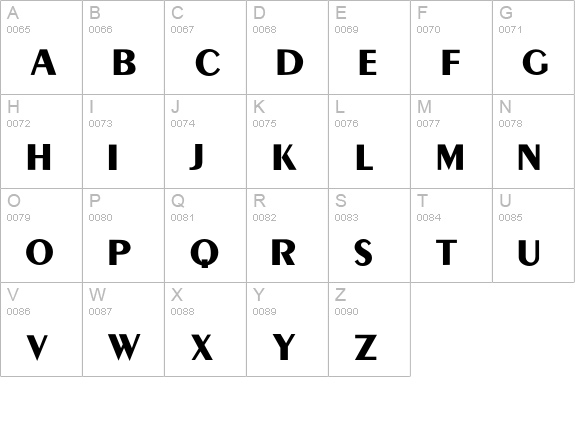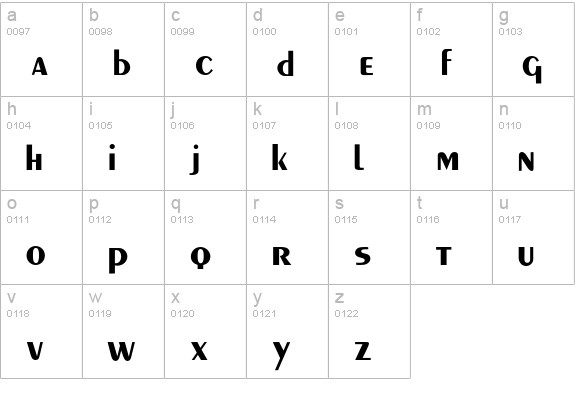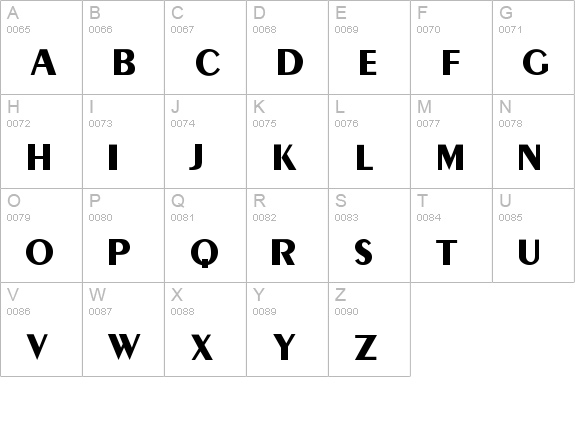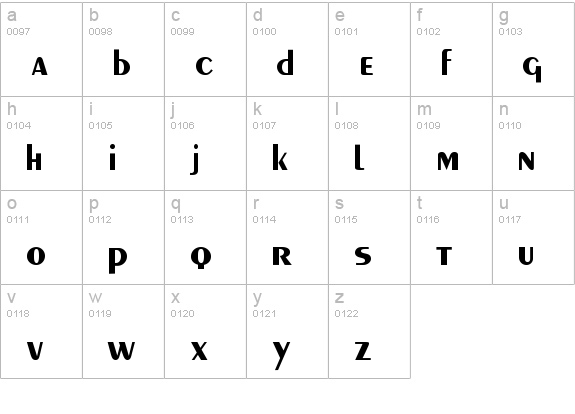
The Alberta font is a modern and stylish typeface that exudes elegance and sophistication. With its clean lines and sleek design, this font is perfect for a wide range of design projects, from branding and advertising to invitations and social media graphics. The Alberta font is versatile and easy to read, making it a great choice for both print and digital applications. What's even better is that the Alberta font is completely free to download at FontsMarket.com. This means you can add this beautiful typeface to your font collection without having to worry about breaking the bank. Whether you're a seasoned designer or just starting out, the Alberta font is a must-have for anyone looking to add a touch of class to their projects. Download it today and start creating stunning designs with this fantastic font.